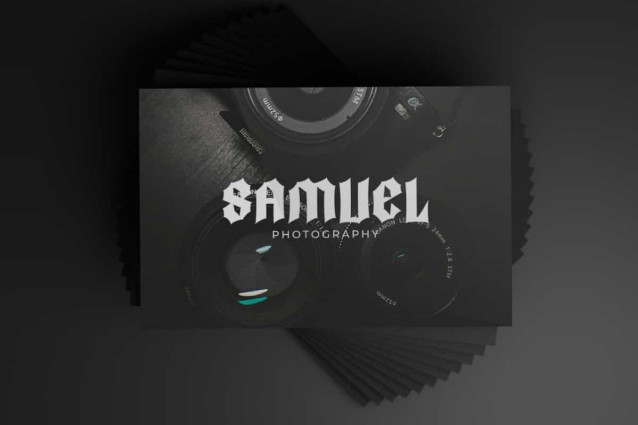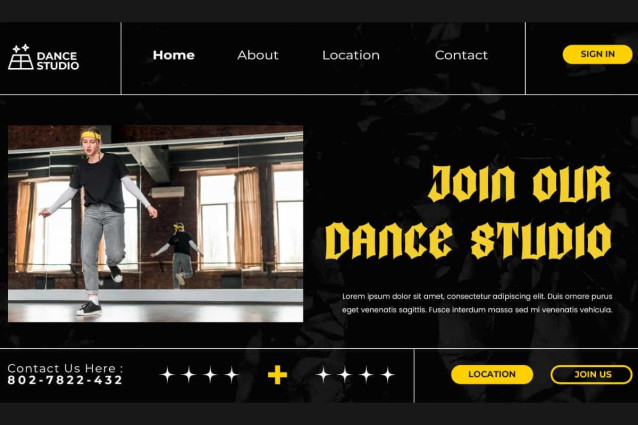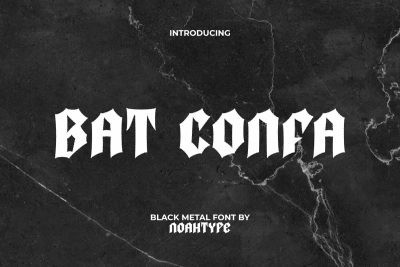
Bat Confa Font
Bat Confa Font is a cool Black metal font, by NoahType. The characters in this font are made bold and sharp so that they can provide a very crisp appearance. It will be perfect for any designs, such as stationery, custom design, invitation, signage, label, brand image, cover, marketing material, menu, poster, printing, product packaging, quotes, website, and many more!
Bat Confa Font includes full set of ALL CAPS for Uppercase and Lowercase Basic Characters, Numerals, Punctuation, Symbol, and Alternate character. This font will make your design looks amazing and also a perfect choice for many industries, such as game, movie, music, accessories, advertising, art, café, event or festival, fashion, printing, publishing, etc.